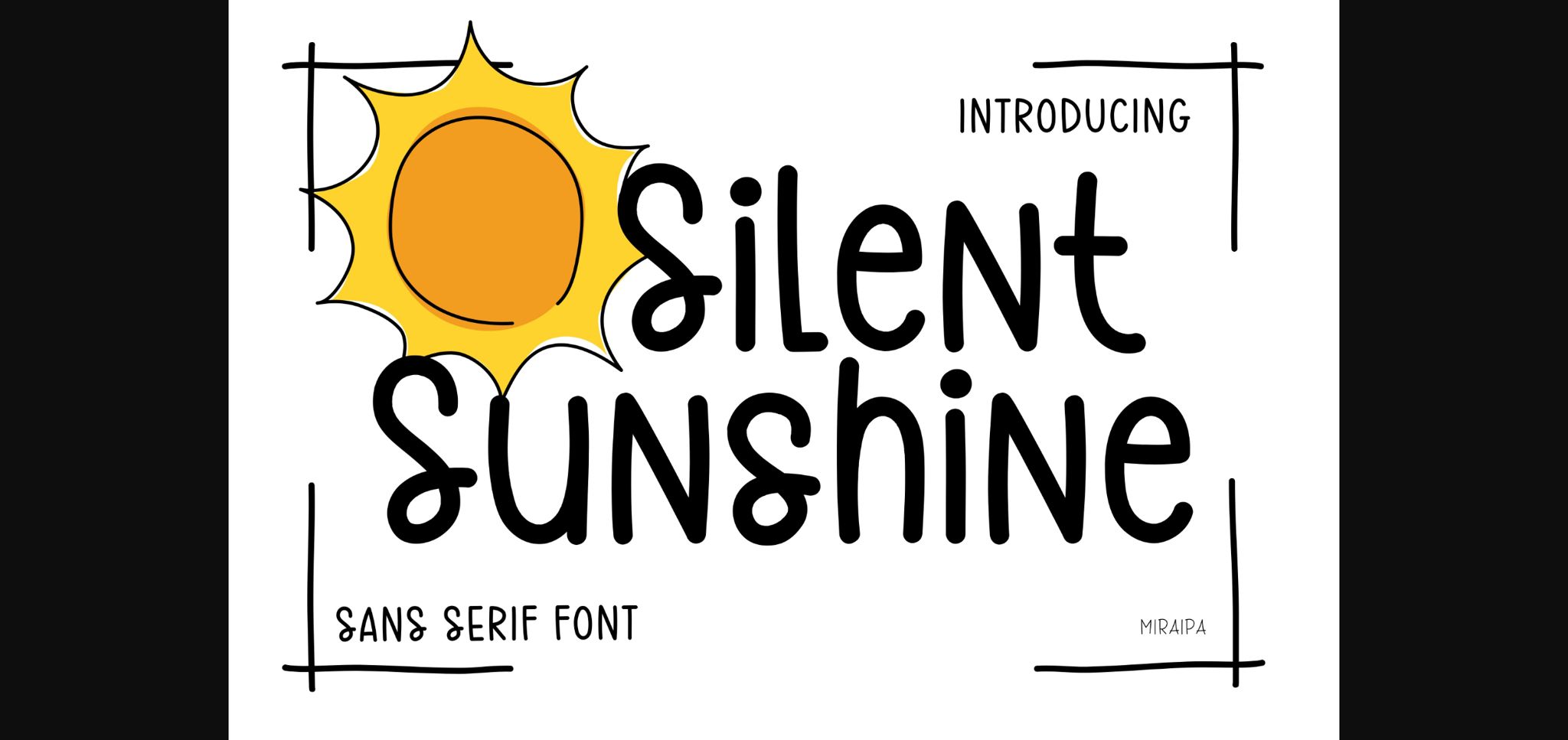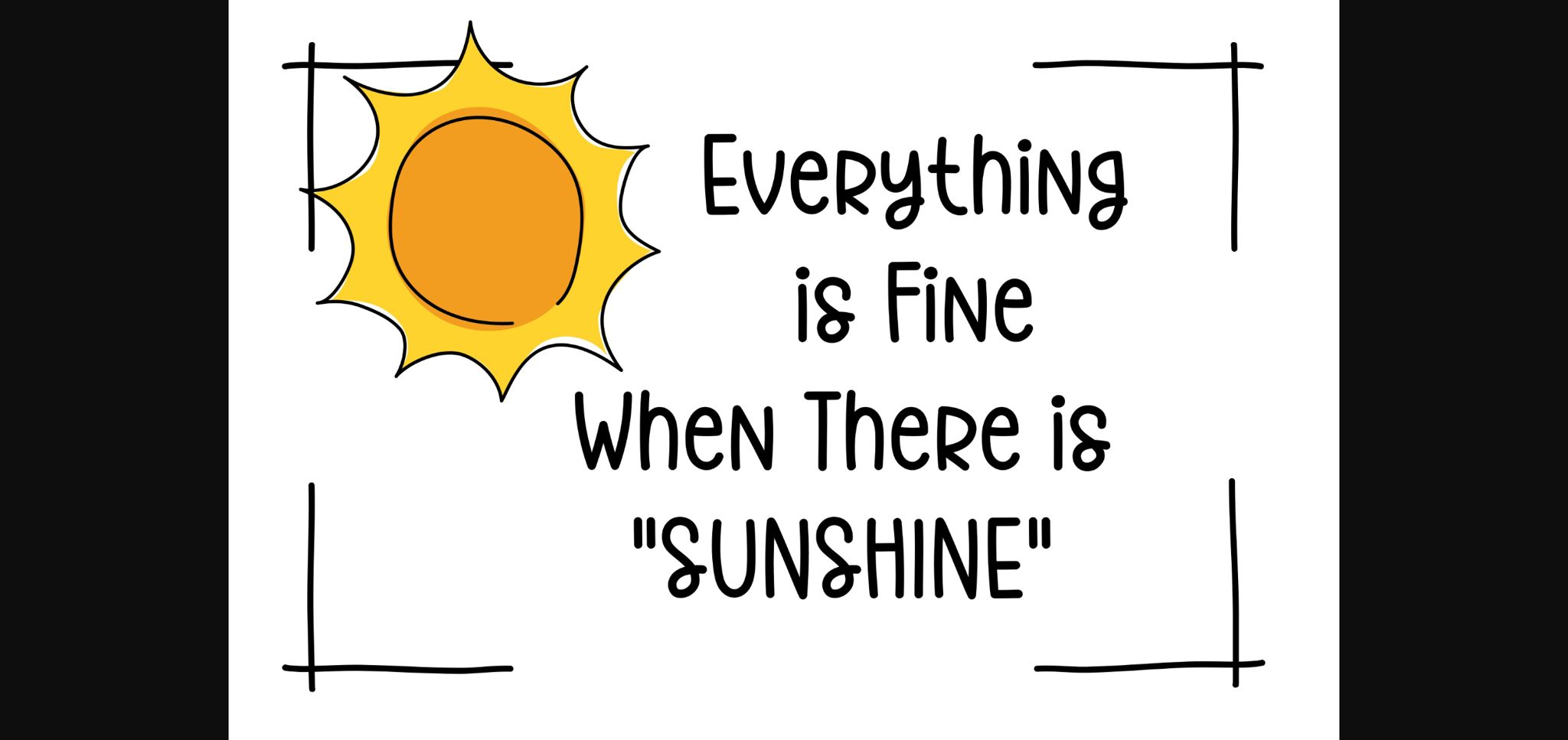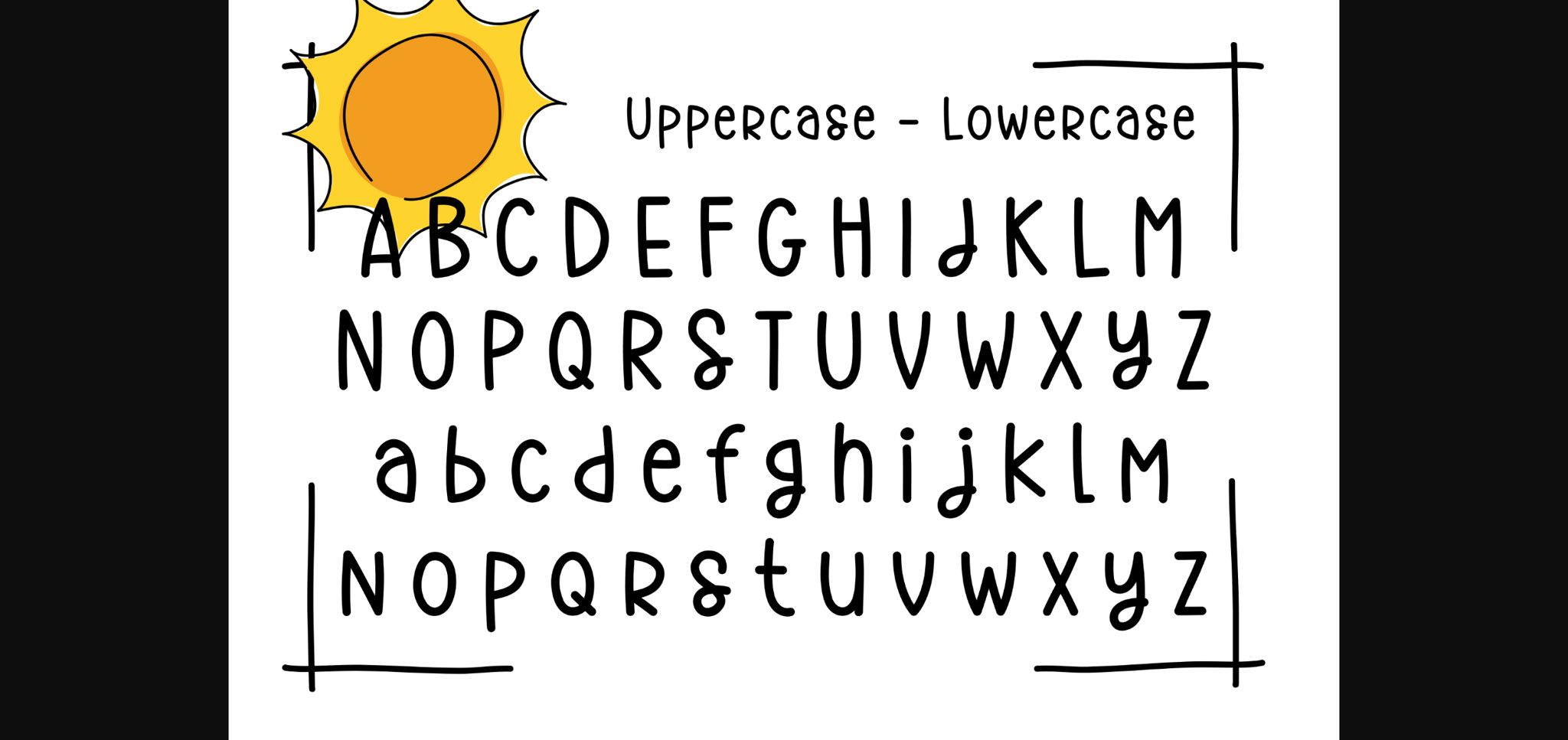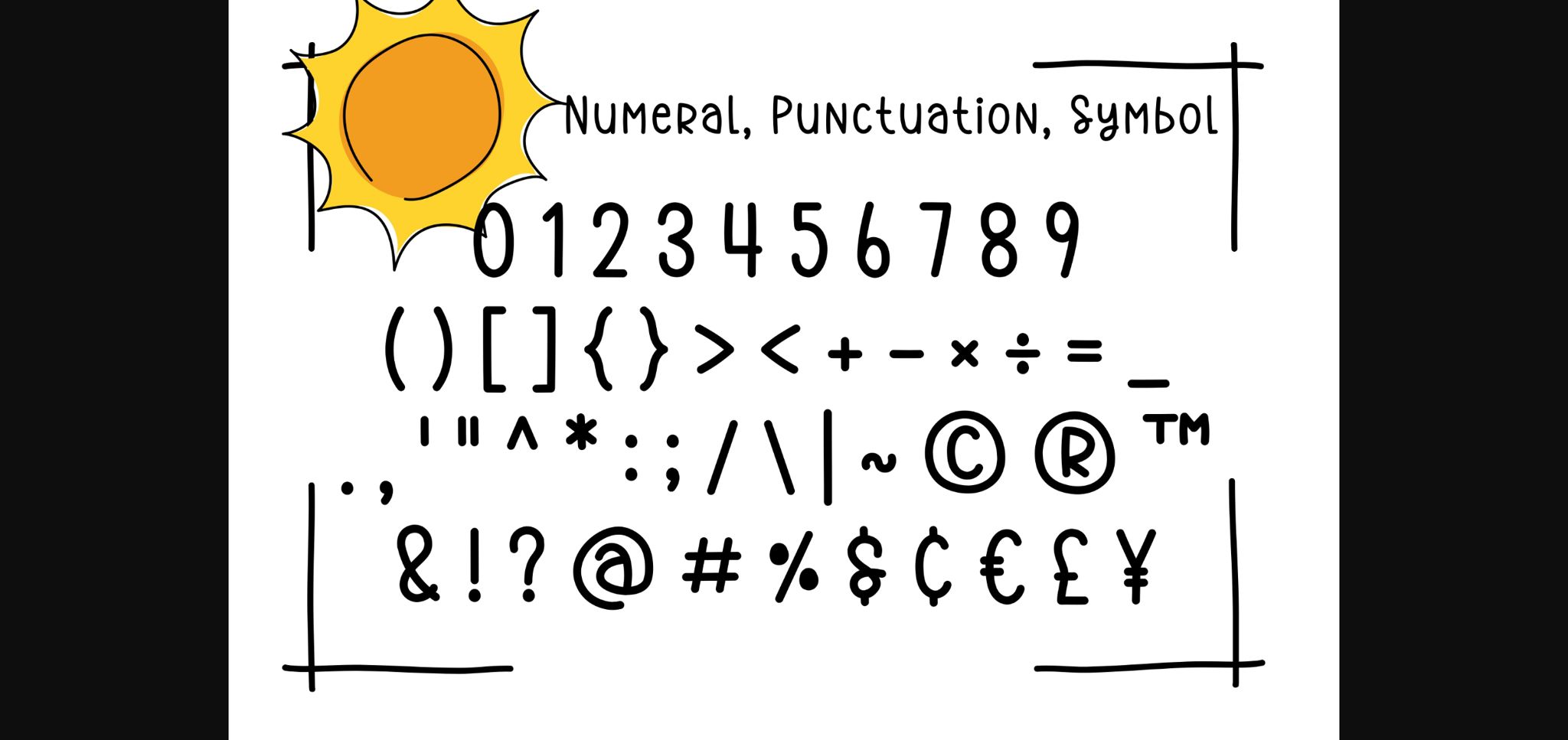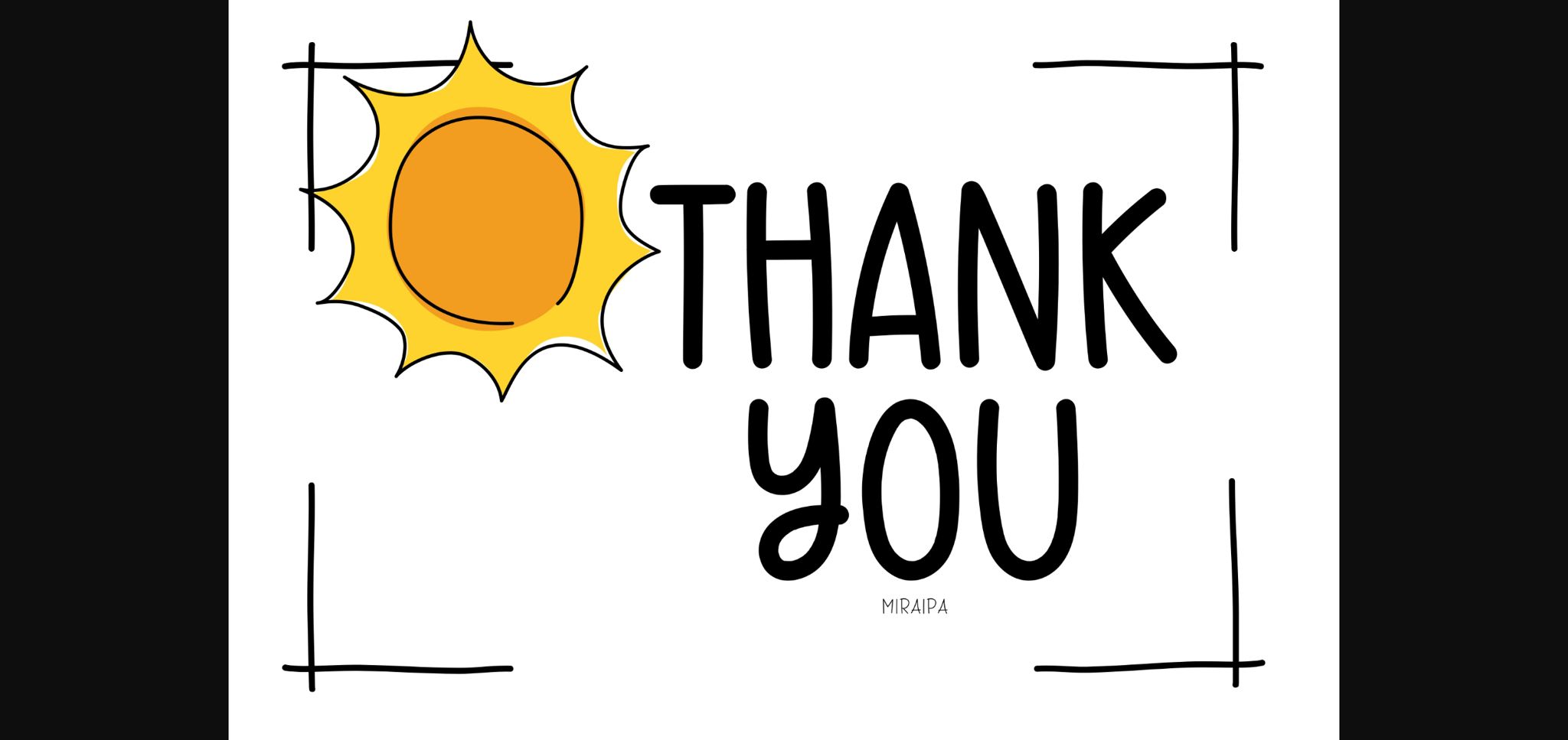
About Silent Sunshine Font
Silent Sunshine is a cute and fun handwritten sans serif font. It embodies playfulness and authenticity and is the perfect choice for any project that requires a whimsical and joyful touch.